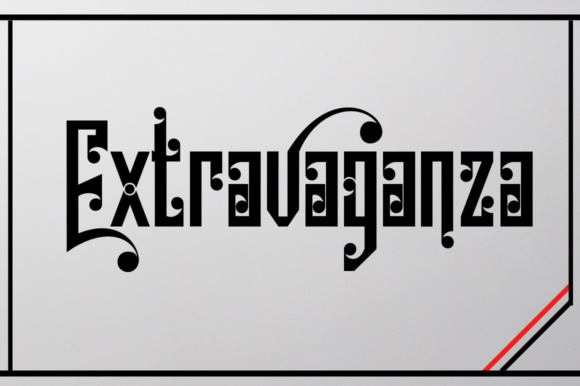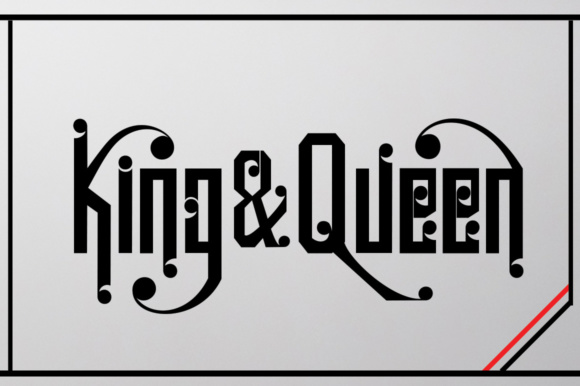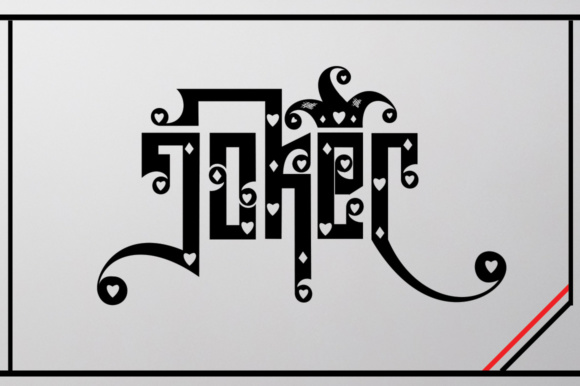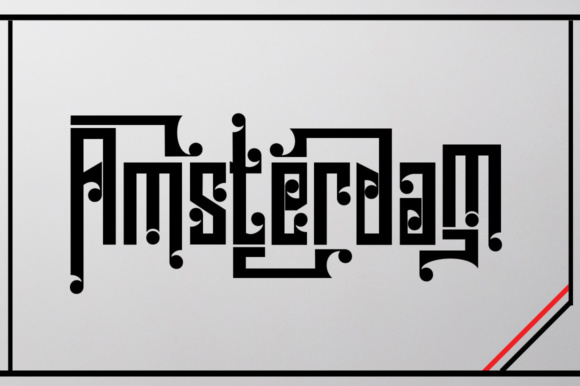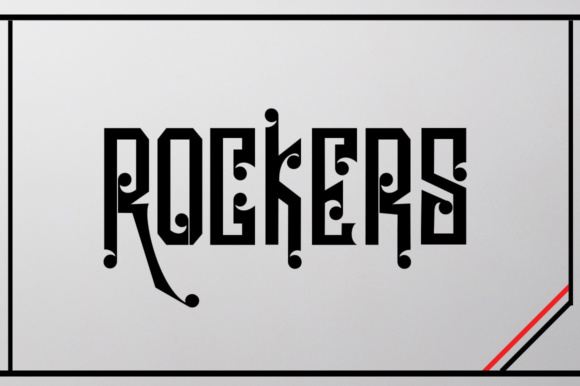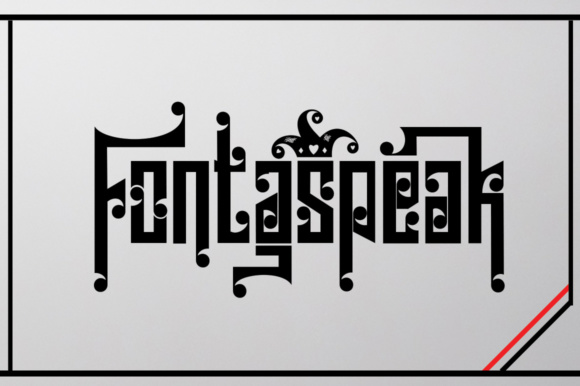
Introduction to JockerLand Font
Have you ever found yourself stuck on a creative project, unable to find the perfect font to bring your design to life? We’ve all been there, frantically searching for that one elusive font that will make our design truly pop. But what if we told you that you’ve been searching for the wrong thing? Introducing the JockerLand Font, a unique display typeface that’s about to revolutionize the way you think about design.
With its fun and playful look, the JockerLand Font is the perfect addition to any creative project. Whether you’re working on a design for a children’s book, a logo for a new business, or simply want to add some personality to your social media graphics, this font is sure to bring a smile to your face and a touch of royalty to your design.
Key Features of JockerLand Font
- High-Quality Design:** The JockerLand Font is a high-quality design resource, perfect for creative projects that require a unique and eye-catching touch.
- Unique Character:** The JockerLand Font features a unique character set, including a range of playful and creative glyphs, making it an excellent choice for designers looking to add some personality to their work.
Honest Review: JockerLand Font
I recently stumbled upon the JockerLand Font, a free download that caught my attention with its quirky and playful vibe. As a designer, I was excited to dive in and see if it could elevate my creative project.
The JockerLand Font is a high-quality design resource, available for free download, which is always a bonus in my book. Upon closer inspection, I was impressed by its clear and readable lines, perfect for titles and headings.
What works well: ✨ The JockerLand Font is incredibly versatile, suitable for a wide range of creative projects, from children’s books to advertising materials. The transparent background is also a nice touch, making it easy to integrate with any design.
However, there are some limitations: ⚠️ The font family is relatively small, and I found myself wishing for more options to choose from. Additionally, the font may not be suitable for formal or professional projects, due to its playful nature.
Overall impression: The JockerLand Font is a solid addition to any designer’s toolkit. While it may not be perfect, its unique charm and high-quality design make it a great resource for creative projects.
Key features:
- Versatile font family
How to Use JockerLand Font
The JockerLand Font is a free design resource ideal for creative projects that require a unique and eye-catching touch. This high-quality font features a transparent background, making it perfect for overlays and text effects.
The JockerLand Font is ideal for:
1. Creating eye-catching social media posts and ads.
2. Designing unique logos and branding materials.
3. Adding a touch of creativity to presentations and documents.
Tips for Getting the Most Out of JockerLand Font
1. Experiment with different font sizes and colors to achieve the desired effect.
2. Combine the JockerLand Font with other design elements for a unique look.
3. Use the transparent background to create stunning text effects and overlays.